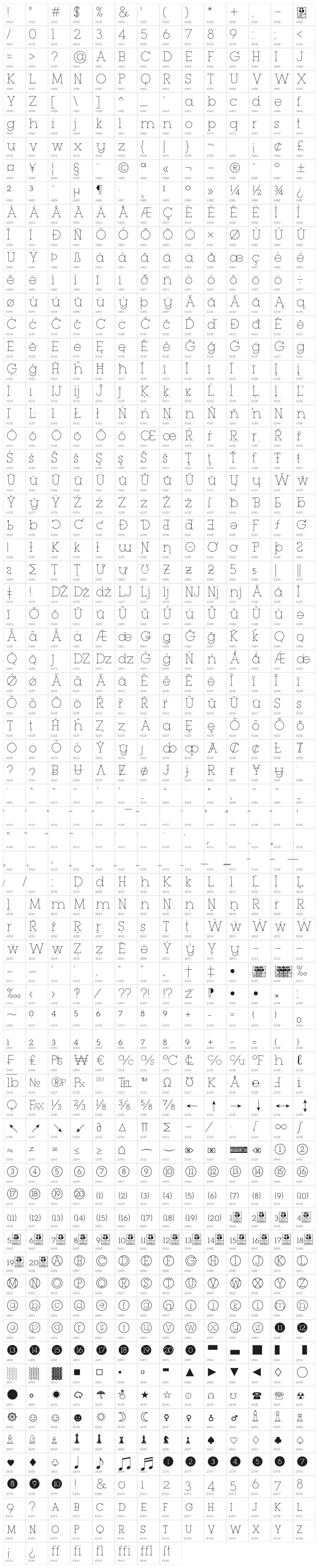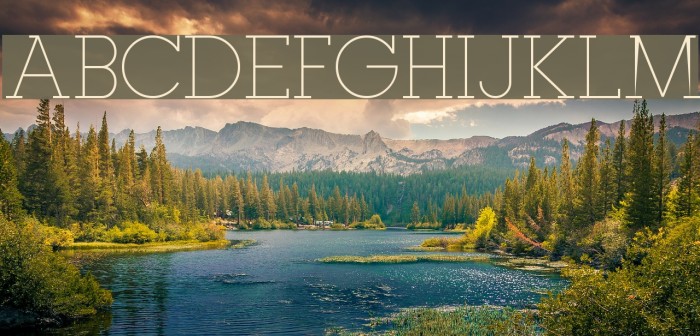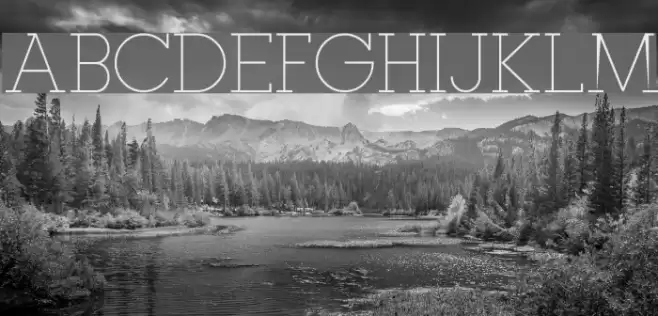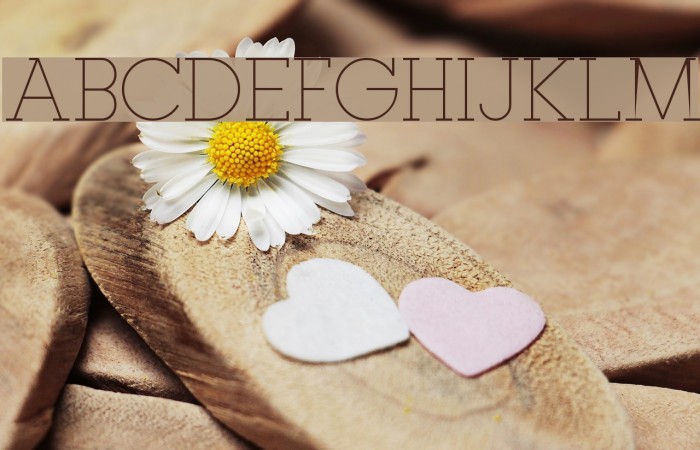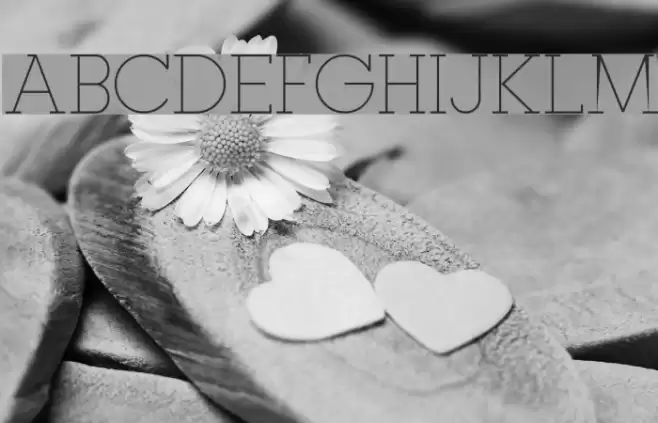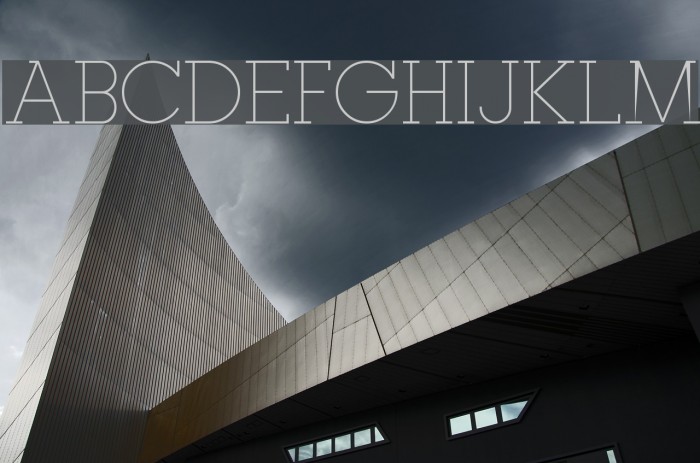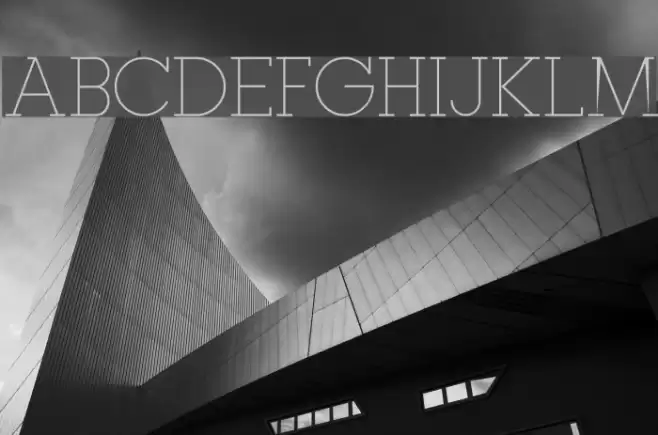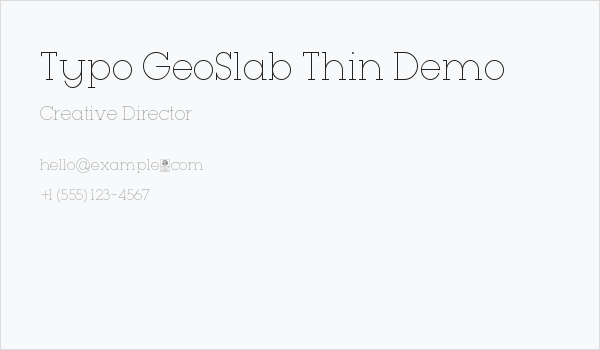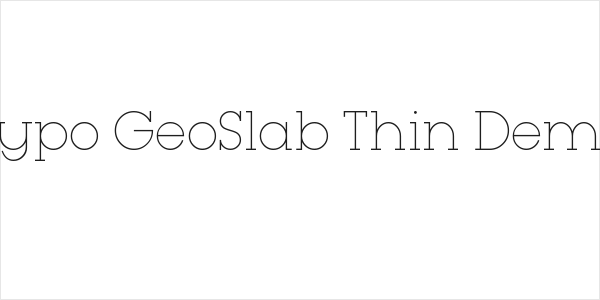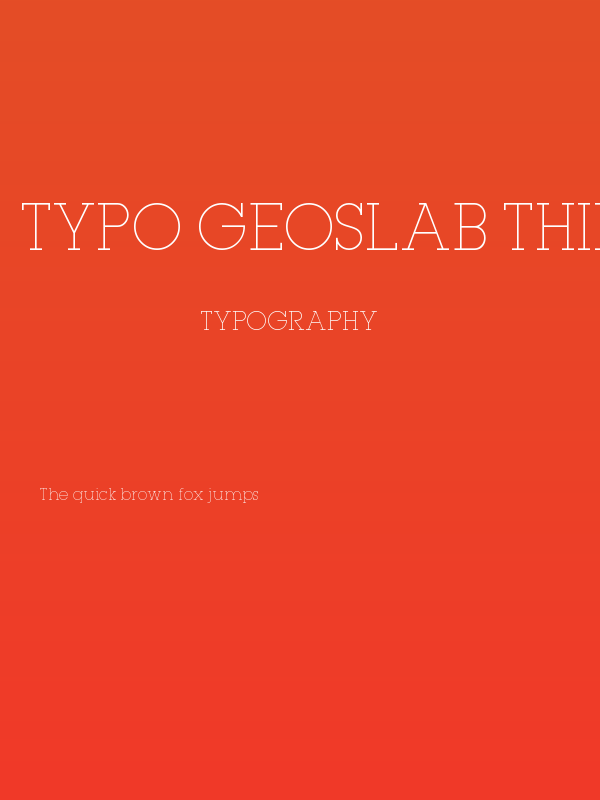
Typo GeoSlab Thin Demo Font
Typo GeoSlab Thin Demo Description
This font features a geometric slab serif style with thin, elegant lines. The characters are clean and modern, with a uniform stroke width that gives a minimalist and sophisticated appearance. The uppercase and lowercase letters are well-proportioned, and the numerals are clear and easy to read. The special characters maintain the same geometric aesthetic, making the font versatile for various design needs. Its thin weight and precise design make it suitable for projects that require a sleek and contemporary look.
| Use Case | Headlines, Logos, Editorial design |
| Proposed Projects | Ideal for branding, editorial design, and digital media where a modern and clean look is desired. |